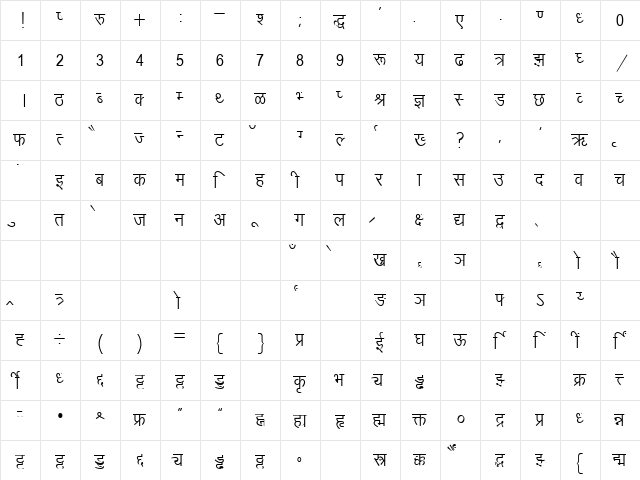
DevLys 010 Thin Normal
Design Context for DevLys 010 Thin Typeface
DevLys 010 Thin takes a measured approach to typography — its balanced proportions and neutral character make it a reliable workhorse for both digital and print work. The delicate stroke weight brings airiness and refinement to layouts.